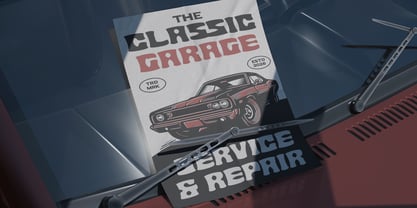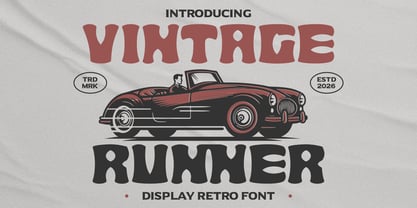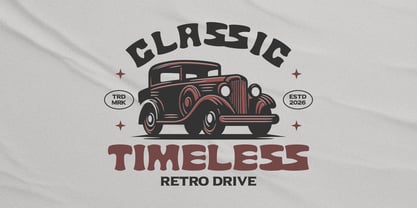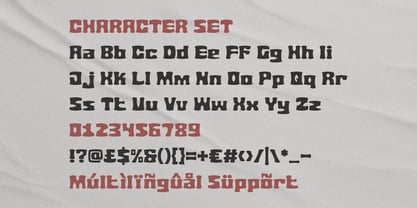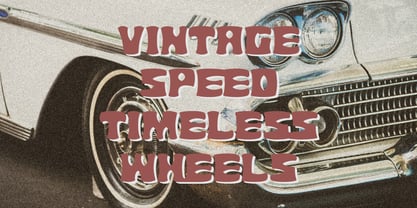
Vintage Runner
by Shanaf
The Vintage Runner Font Family was designed by Yesie Erma Yunita and published by Shanaf. Vintage Runner contains 1 styles. More about this family
Vintage Runner Retro Sport Font brings thick chunky letterforms with rounded edges and strong curves. Each character feels solid, compact, and full of motion. Wide proportions create bold presence in short words and titles. Soft corners balance the heavy weight, making the font energetic and readable. Irregular inner cuts add vintage attitude and handcrafted character. The style blends retro motorsport, old signage, and classic Americana spirit. It fits logos for garages, car clubs, repair shops, auto detailing brands, and racing events. Use it for posters, stickers, banners, packaging, ads, magazine covers, and bold headlines. This font delivers nostalgic speed with a playful muscular tone. Built for standout branding, this typeface works where impact matters most. It suits barbershops, cafés, gaming rooms, workshops, and vintage stores. The dense shapes hold attention on signs, badges, and emblem designs. Use it for product labels, social media titles, YouTube thumbnails, book covers, and event flyers. Vintage Runner Retro Sport Font also pairs well with clean sans text. That mix creates balanced layouts for menus and promotional graphics. Multilingual support expands usage for wider audiences and global branding needs. Choose it when your project needs retro confidence, classic road culture, and strong logo energy.